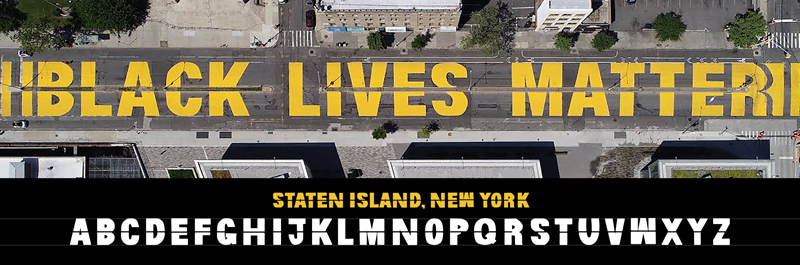
On 6/5/20, a message of solidarity for #BlackLivesMatter was painted in front of the White House. Since then, many other cities across the U.S and even some abroad have followed suit. Unfortunately, as we saw in Martinez, CA over the weekend, people will go through great lengths to spew their hatred by vandalizing these city approved murals. So, we preserved the message by turning physical murals into digital fonts: Black Lives Matter Font. This font pack will be continuously updated, it currently includes fonts from the Washington, D.C., Oakland, Staten Island, and Martinez murals. The font pack is 100% free for anyone in the Black Lives Matter Movement. More details: blacklivesmatterfont.com |